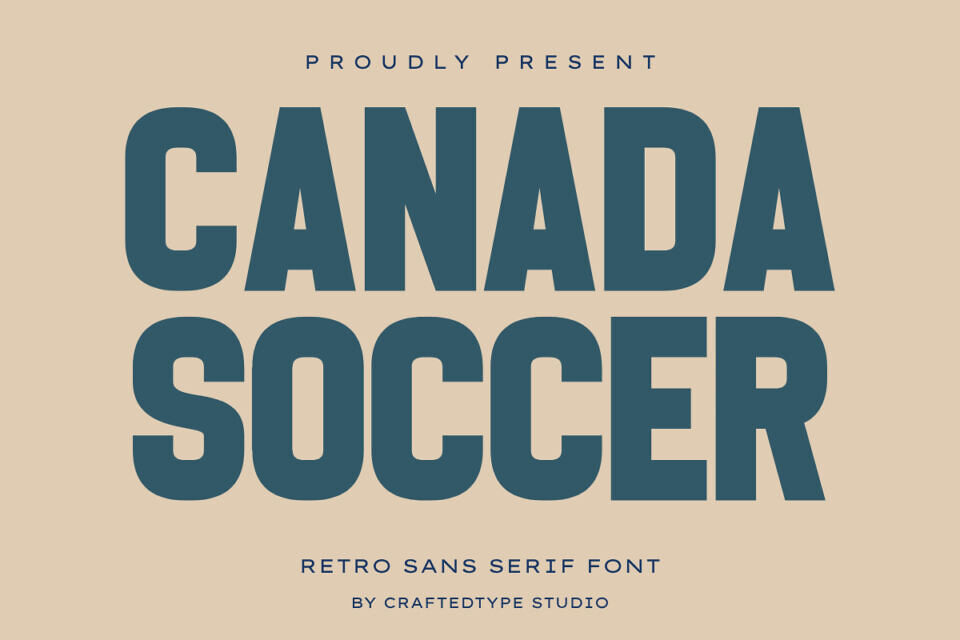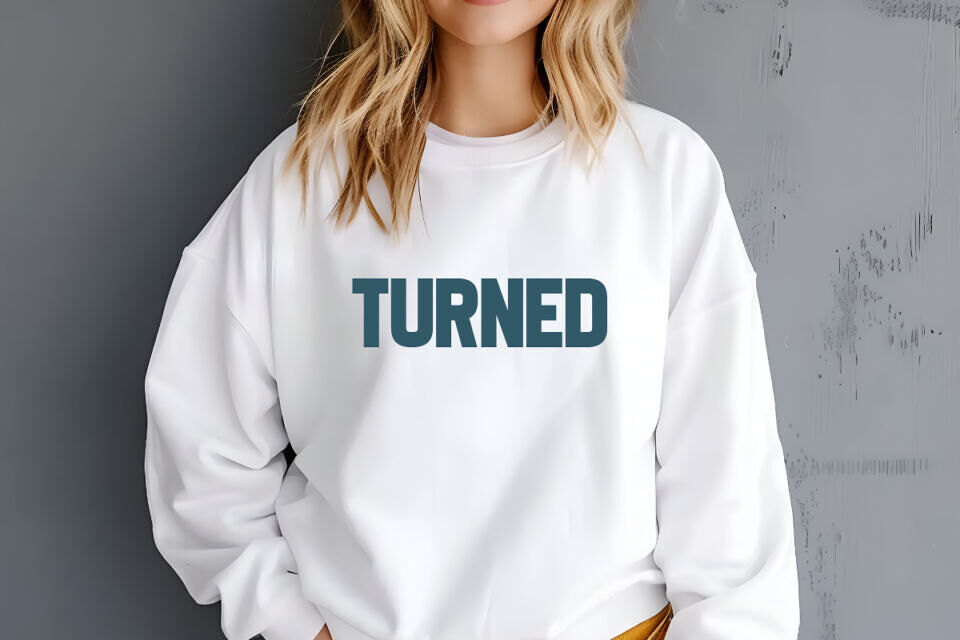
Canada Soccer Font
Canada Soccer is a sleek and stylish retro sans serif font designed for creators who value clean aesthetics and strong visual impact.
With its bold, balanced letterforms and elegant spacing, this font is perfect for Print On Demand projects like t-shirts, posters, mugs, and tote bags, as well as for film titles, branding, logos, and modern packaging. Its versatile style fits both professional and playful designs, making it ideal for crafting projects, minimalist branding, or cinematic visuals.